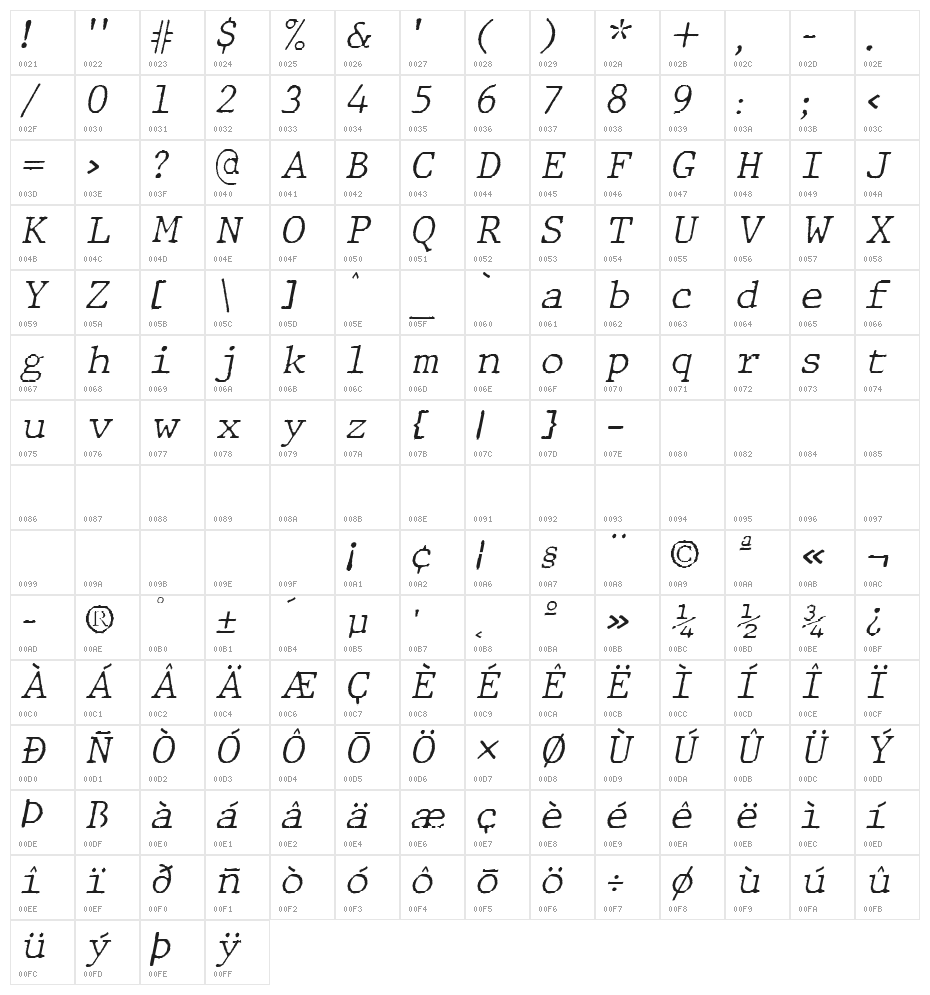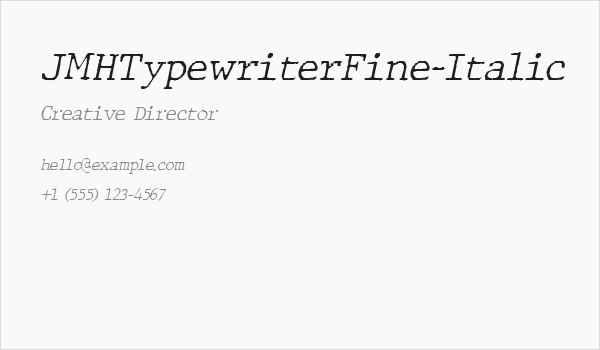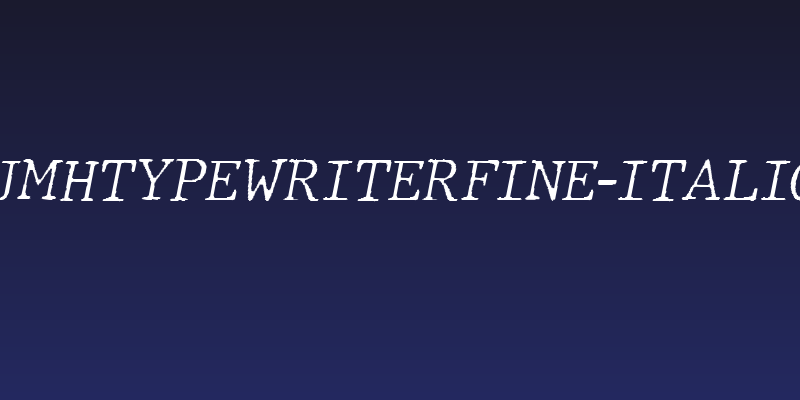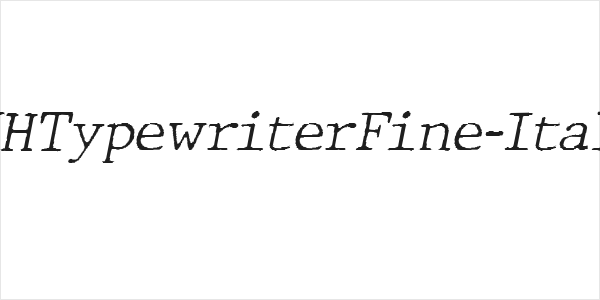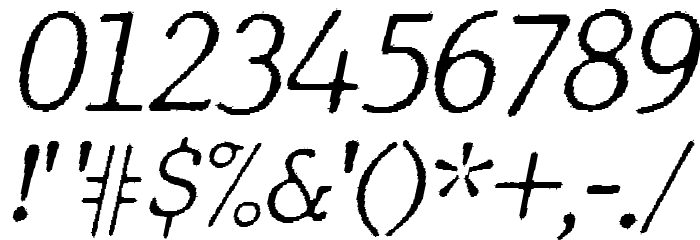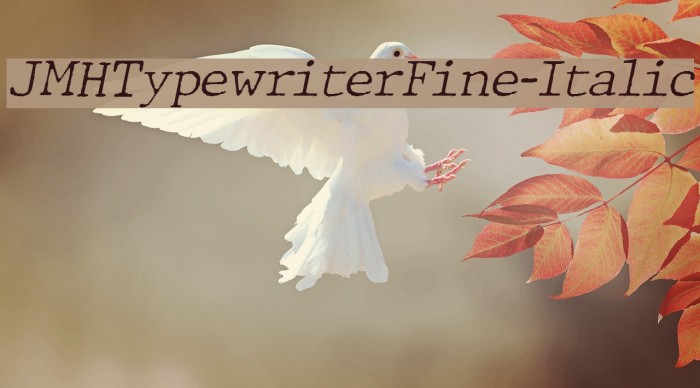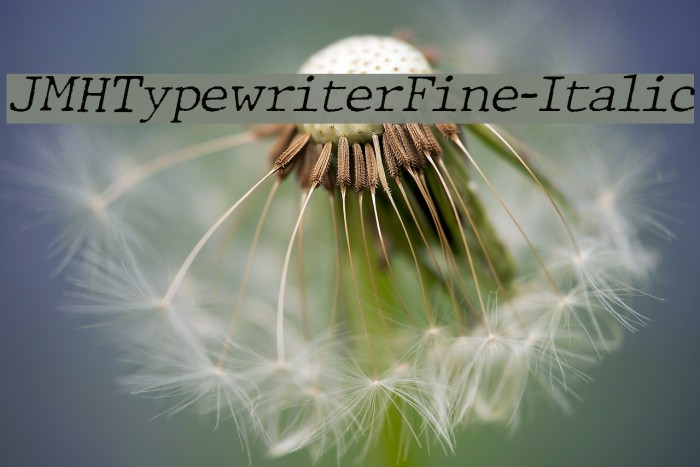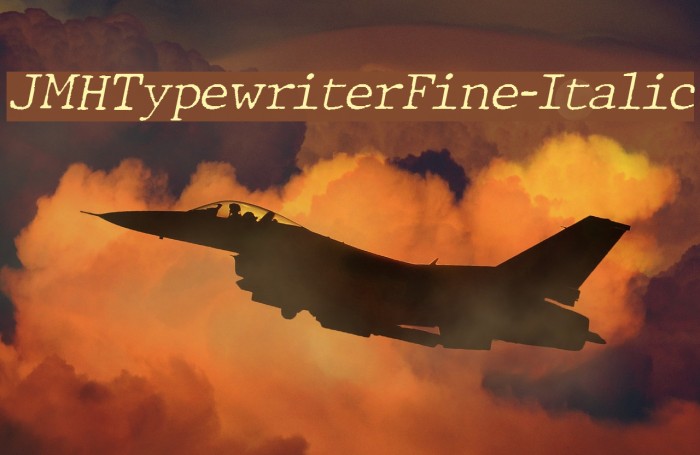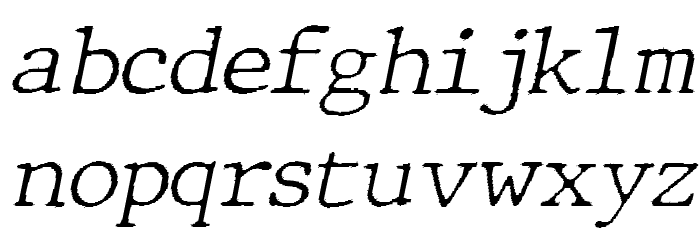
JMHTypewriterFine-Italic Font
This font features a classic typewriter style with a fine, elegant twist. Each character is slightly slanted, giving it an italic appearance, while maintaining the mechanical precision typical of typewriter fonts. The strokes are consistent and clean, with a medium contrast between thick and thin lines. The uppercase letters are bold and prominent, while the lowercase letters are more delicate, yet still maintain a strong presence. The numerals and special characters are well-defined, ensuring readability and clarity. This font combines the nostalgic feel of vintage typewriters with a modern, sophisticated touch.
| Proposed Projects | Ideal for projects that require a vintage or retro aesthetic, such as typewriter-themed designs, retro posters, or classic book covers. |